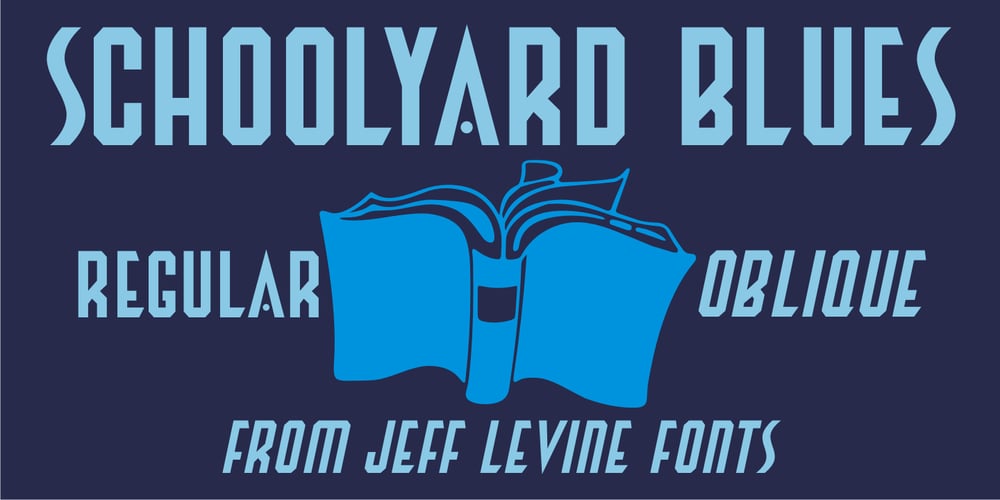
Schoolyard Blues JNL Font Family was designed by Jeff Levine and published by Jeff Levine. Schoolyard Blues JNL contains 2 styles and family package options. Schoolyard Blues JNL is based on the hand lettered title found on the sheet music for the 1938 song “I Was Late for School”. A condensed sans serif with chamfered corners, it reflects the Art Deco influences of the day in some of the letter forms. This type design is available in both regular and oblique versions.